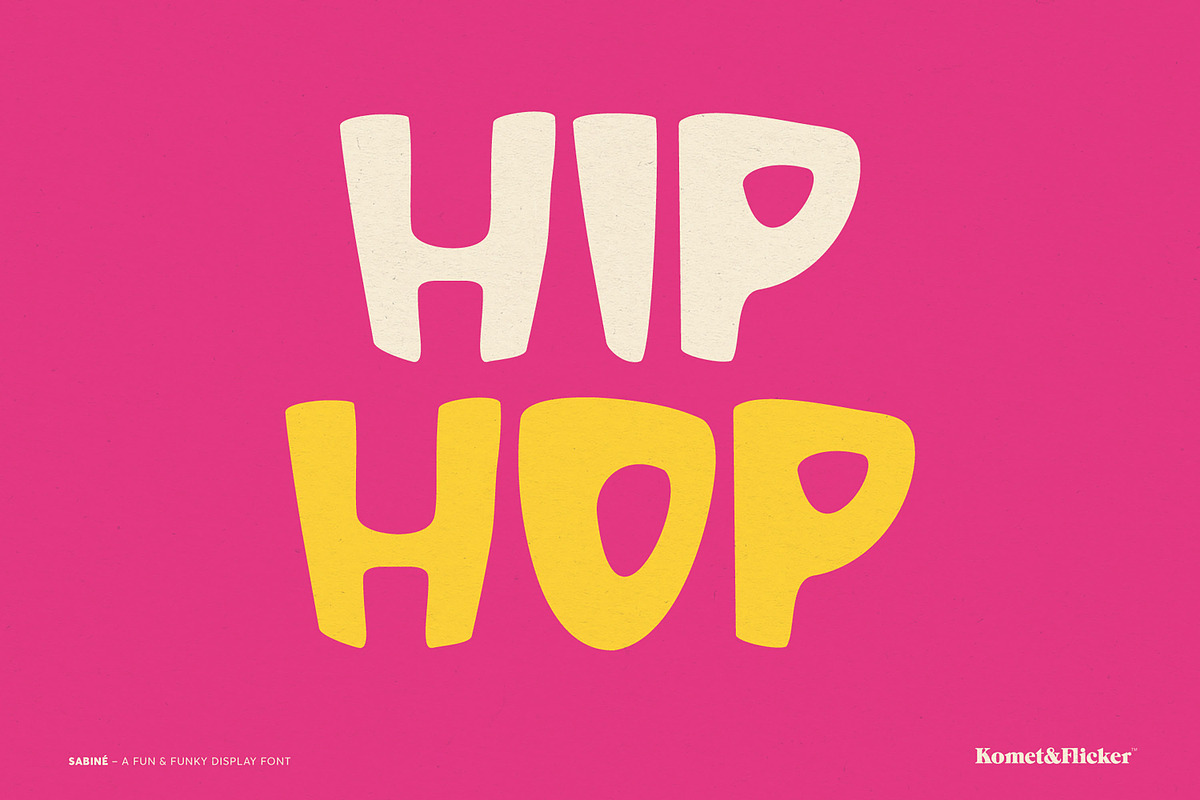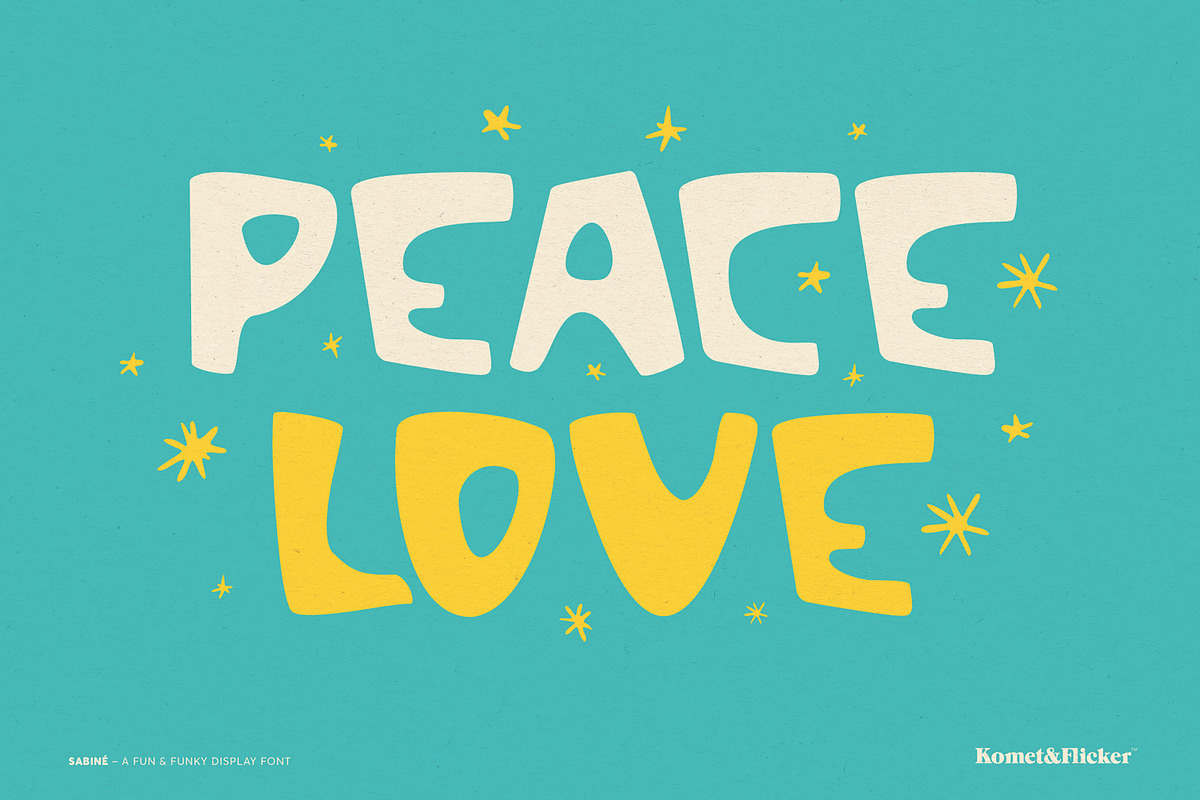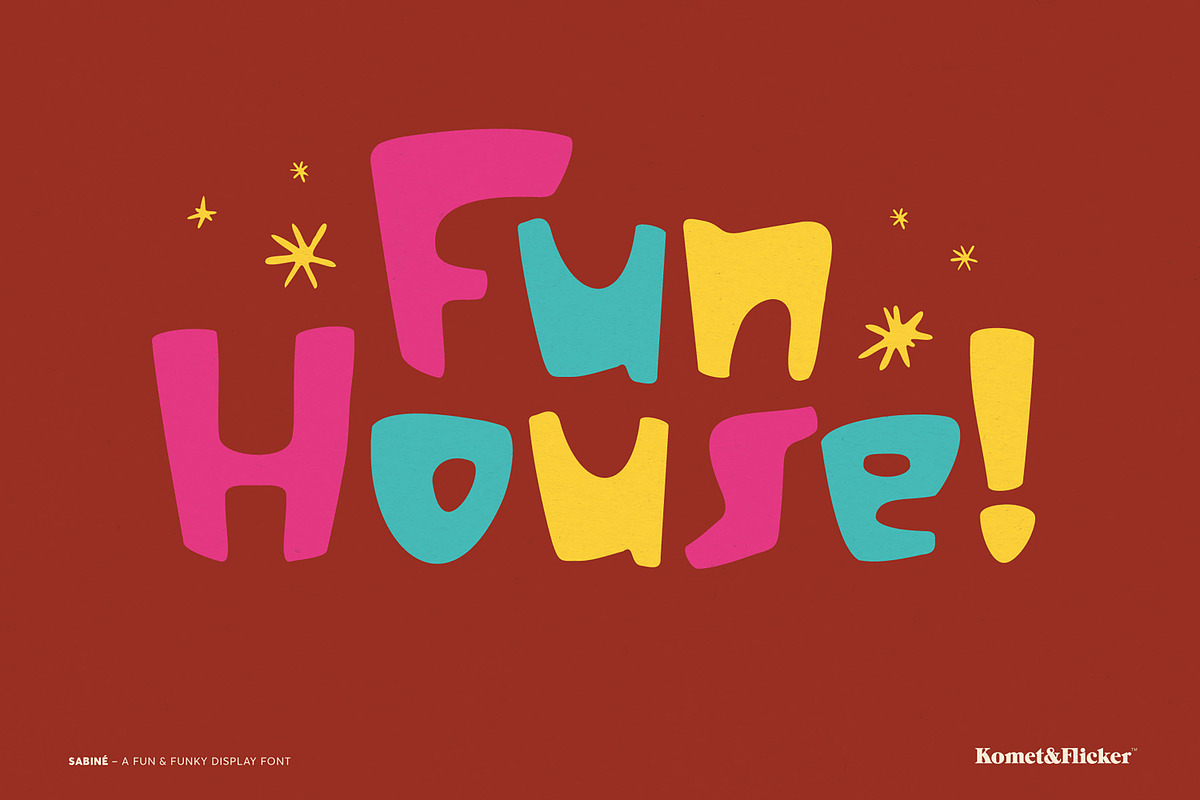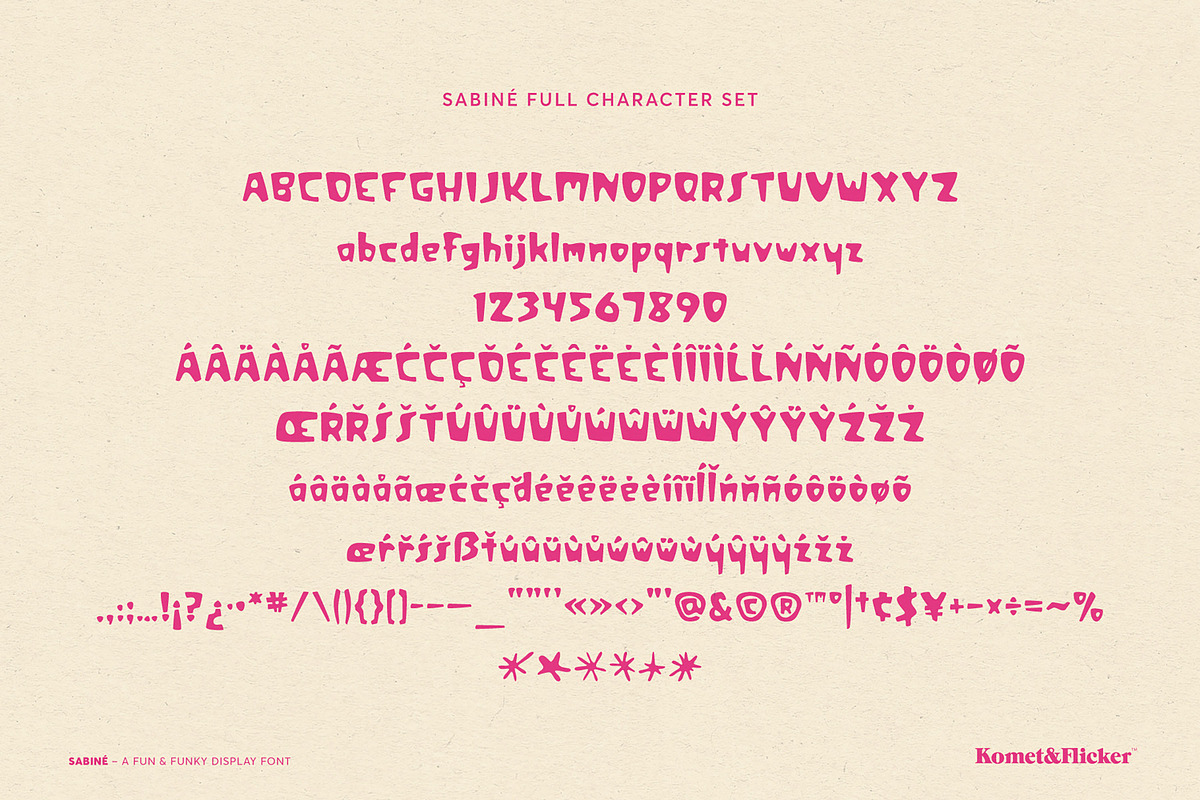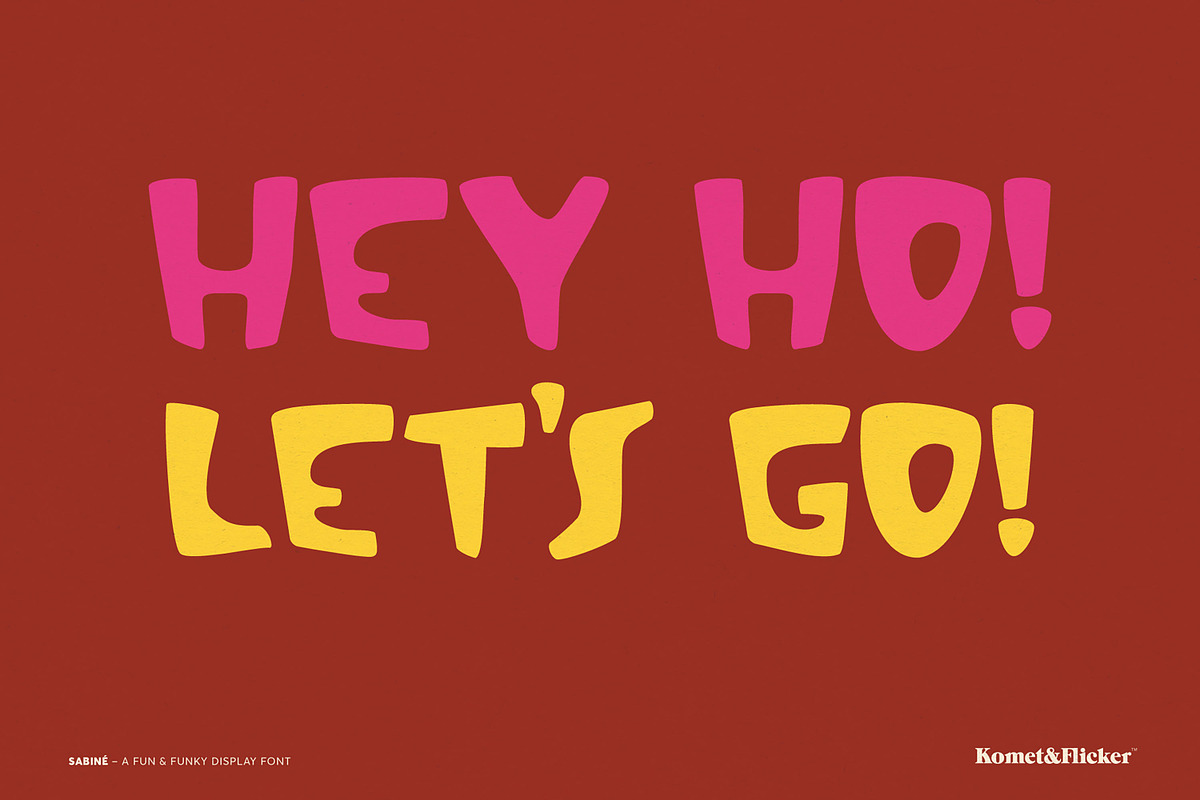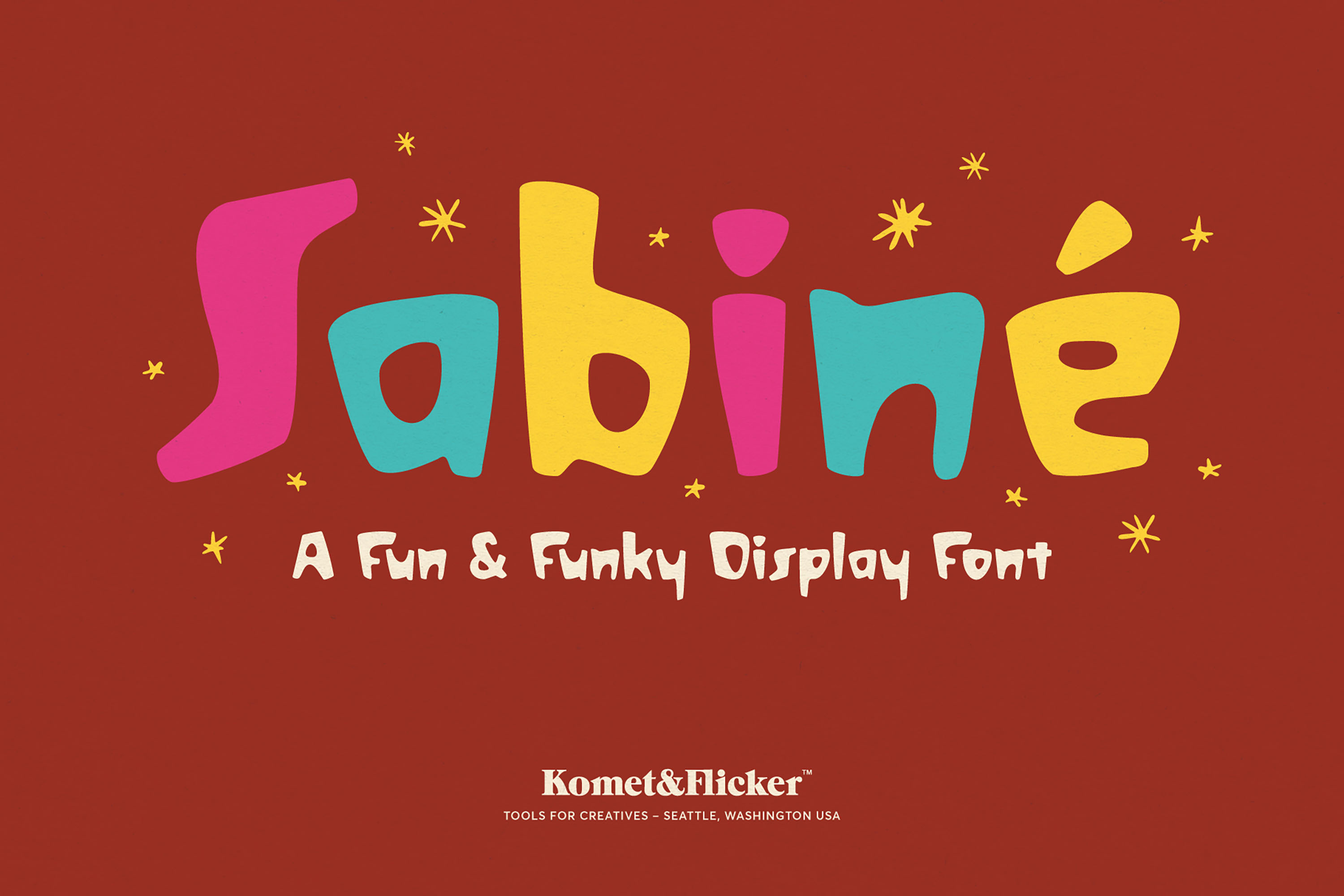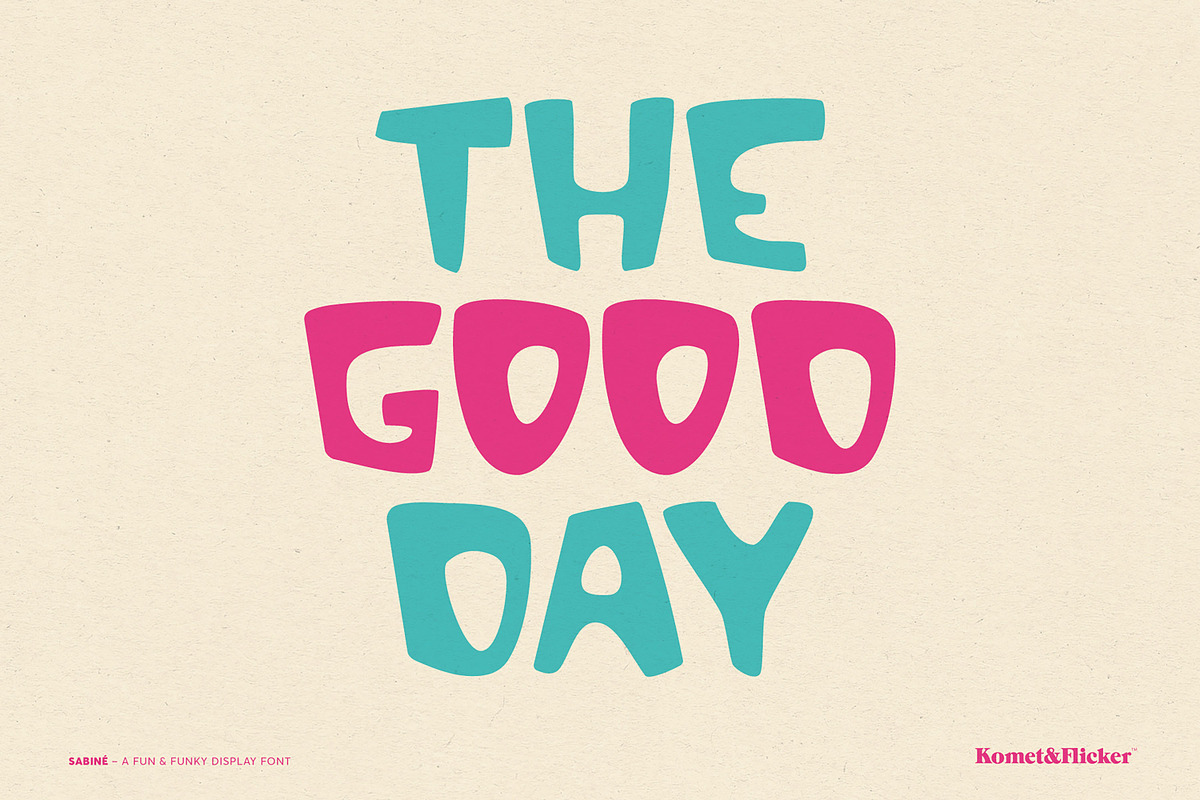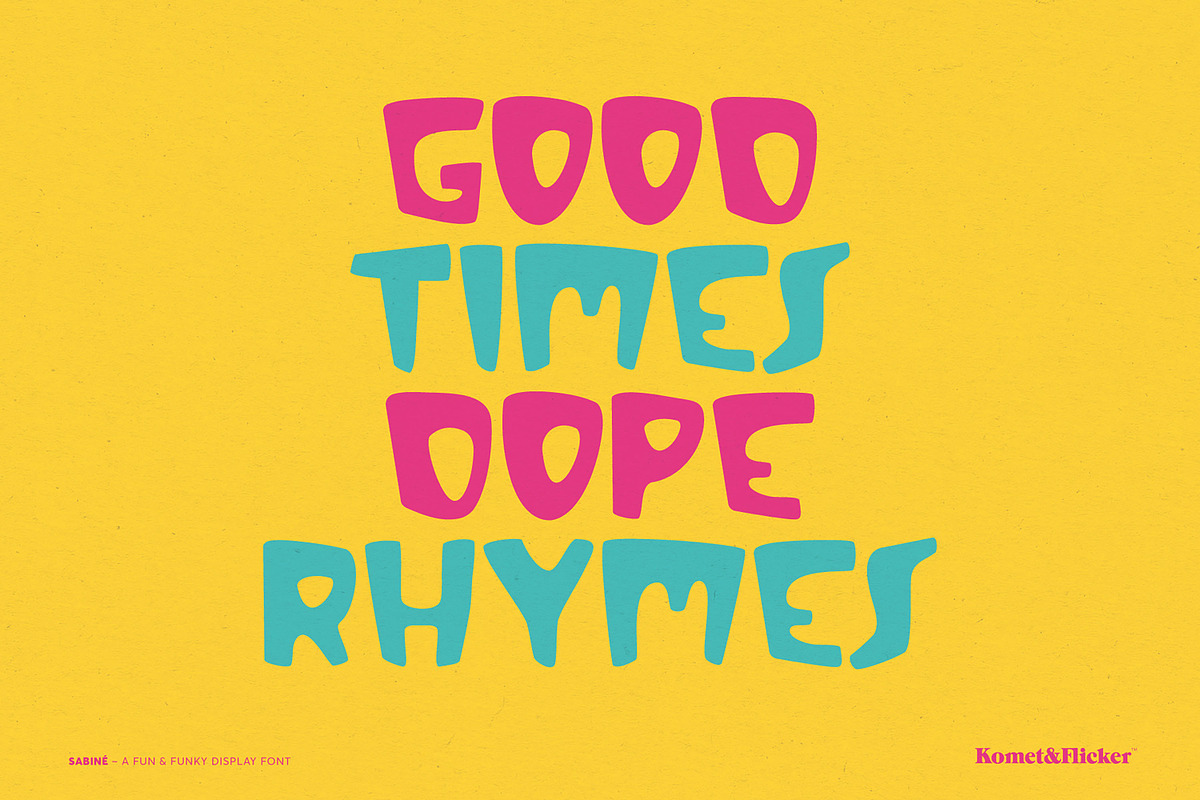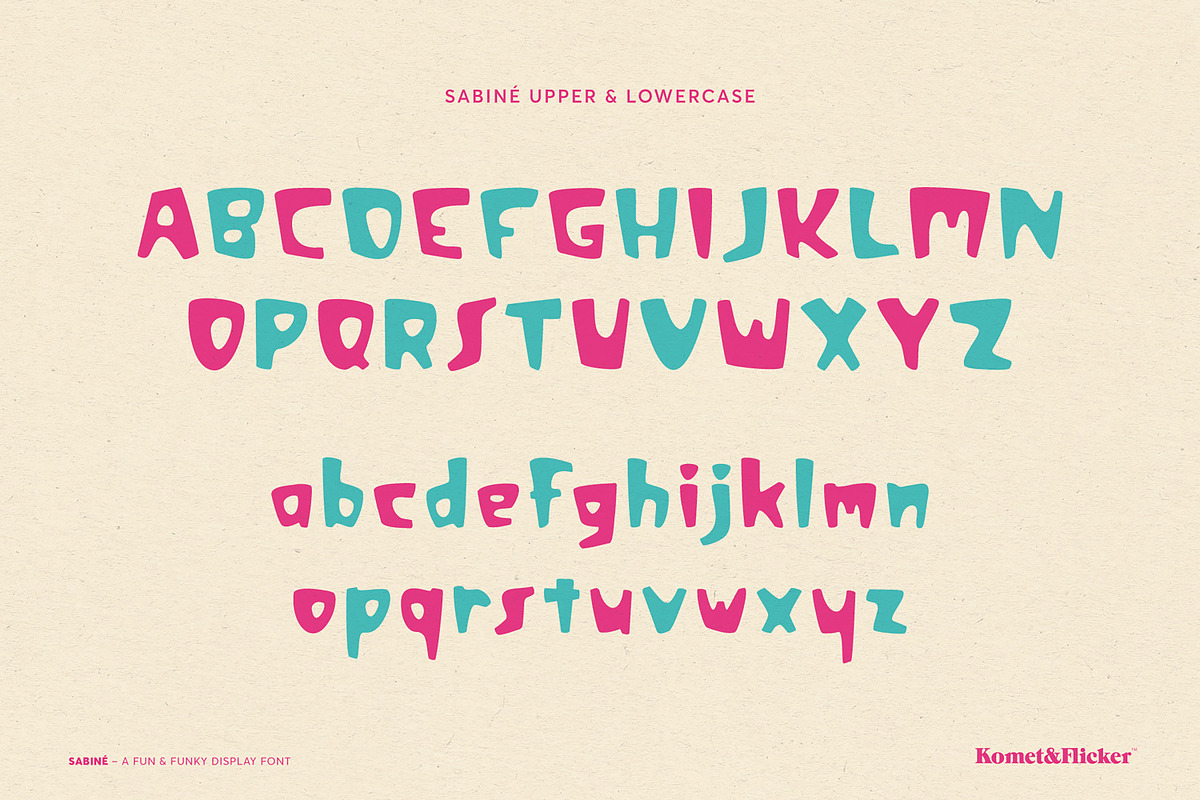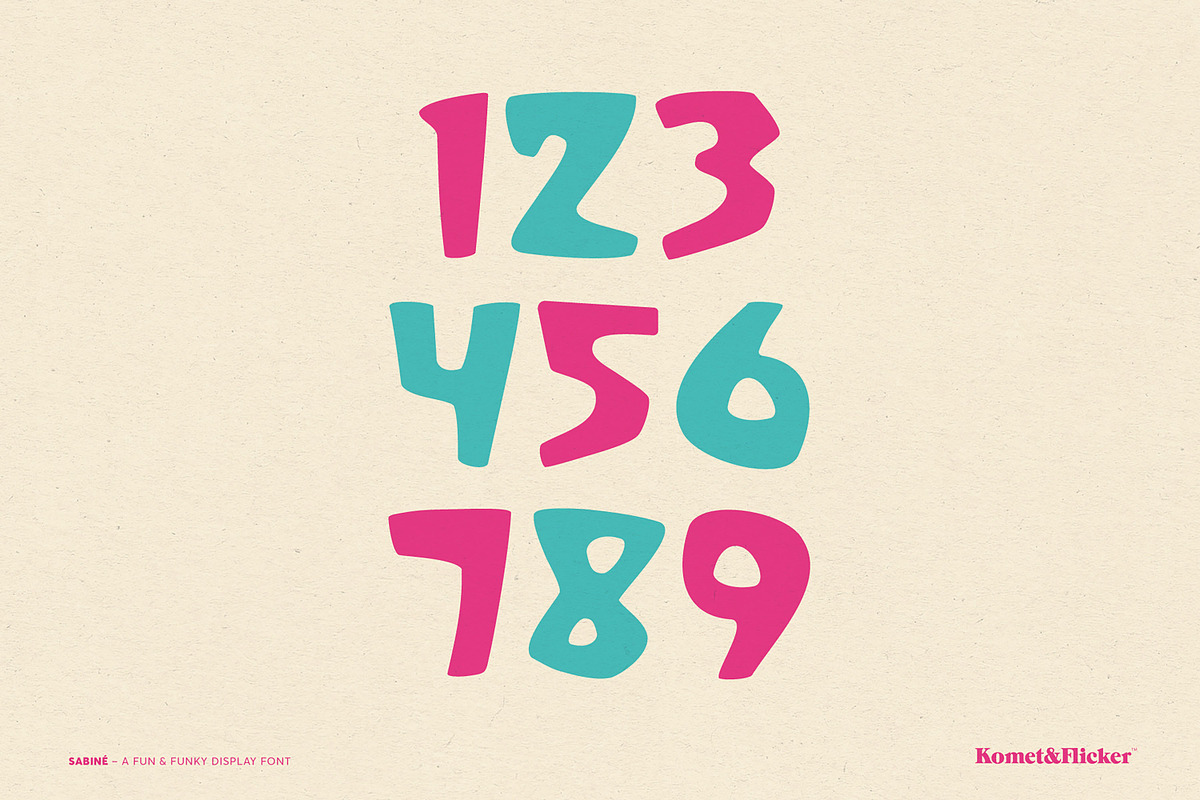
Sabiné - A Fun & Funky Display Font
Introducing Sabiné – a fun and funky display font that’s ready to turn any design into a lively celebration!
Bursting with personality and charm, Sabiné is perfect for injecting a playful vibe into your party invites, children’s themed designs, and any project that needs a touch of whimsical flair. Its quirky, eye-catching style ensures that your message stands out with a splash of joy and creativity.
Whether you're crafting birthday invites or designing vibrant event posters, Sabiné adds an irresistible spark of fun to every letter. Get ready to make your designs dance with Sabiné!
THIS FONT INCLUDES
- A-Z uppercase and lowercase basic latin characters
- Select European specific characters
- Numbers, punctuation, and select symbols
- Six starburst dingbats